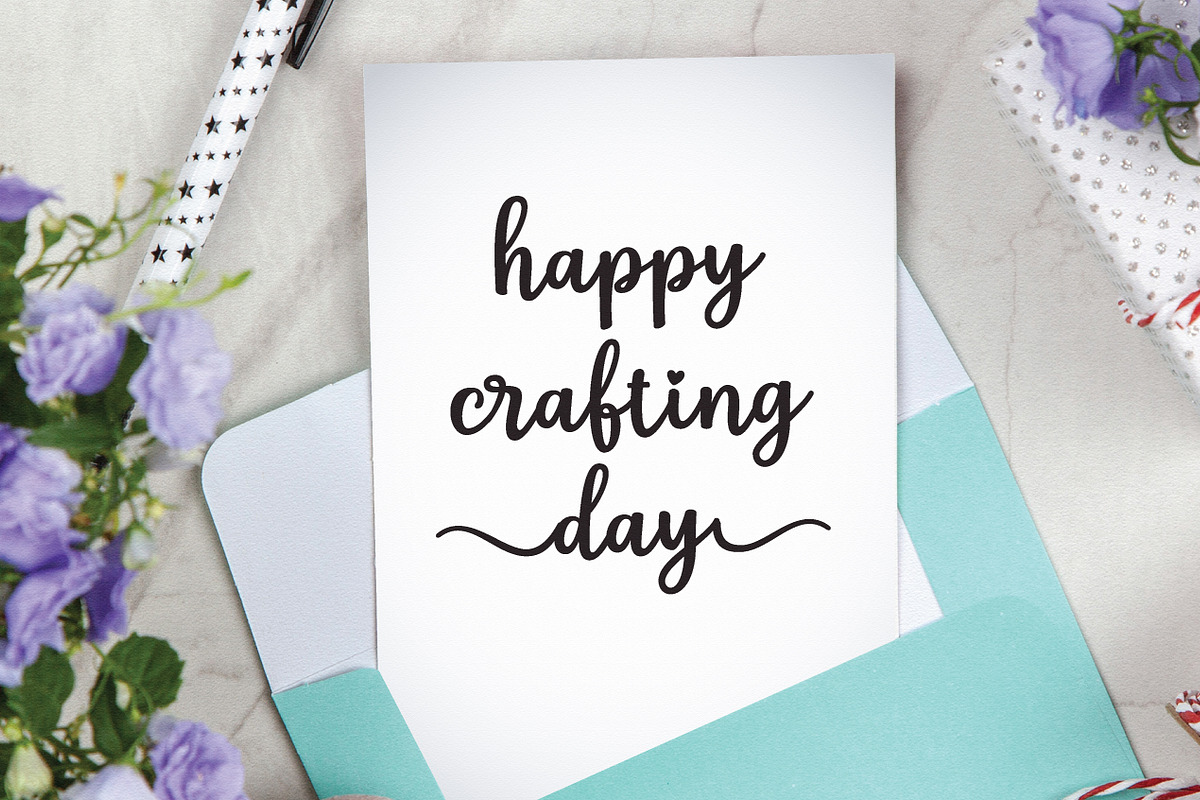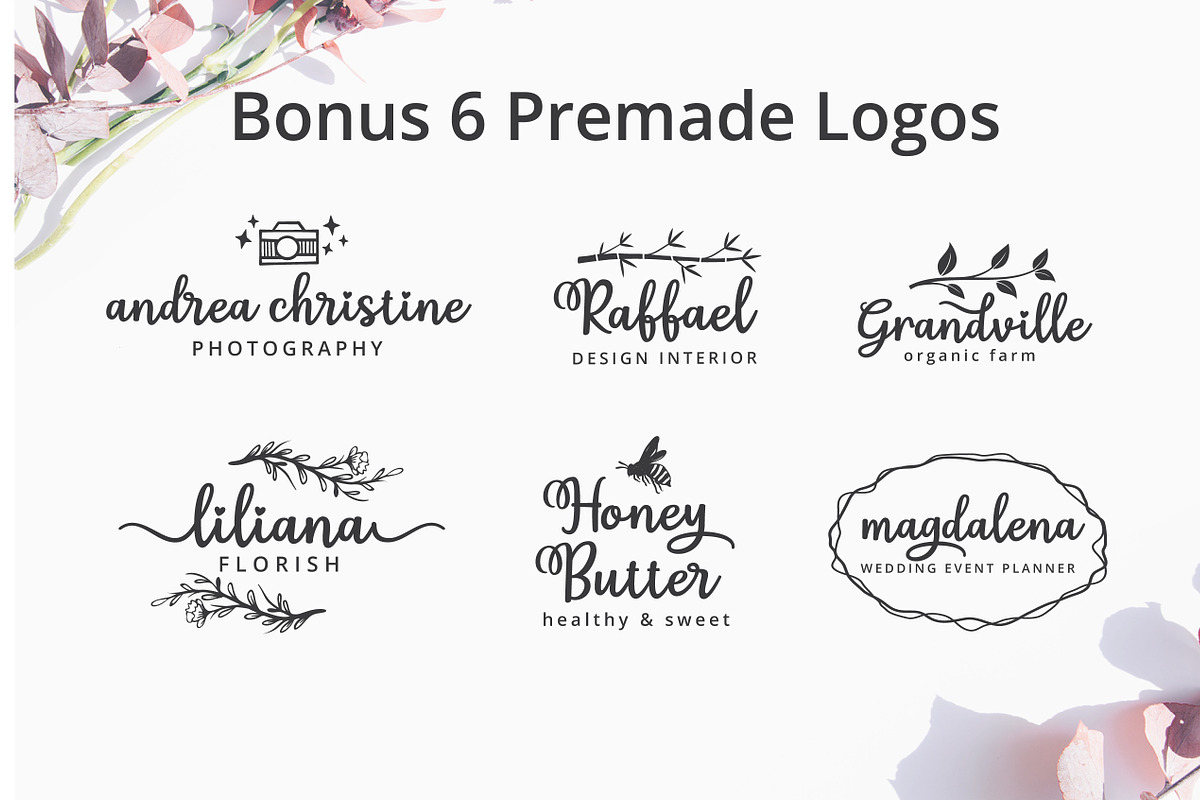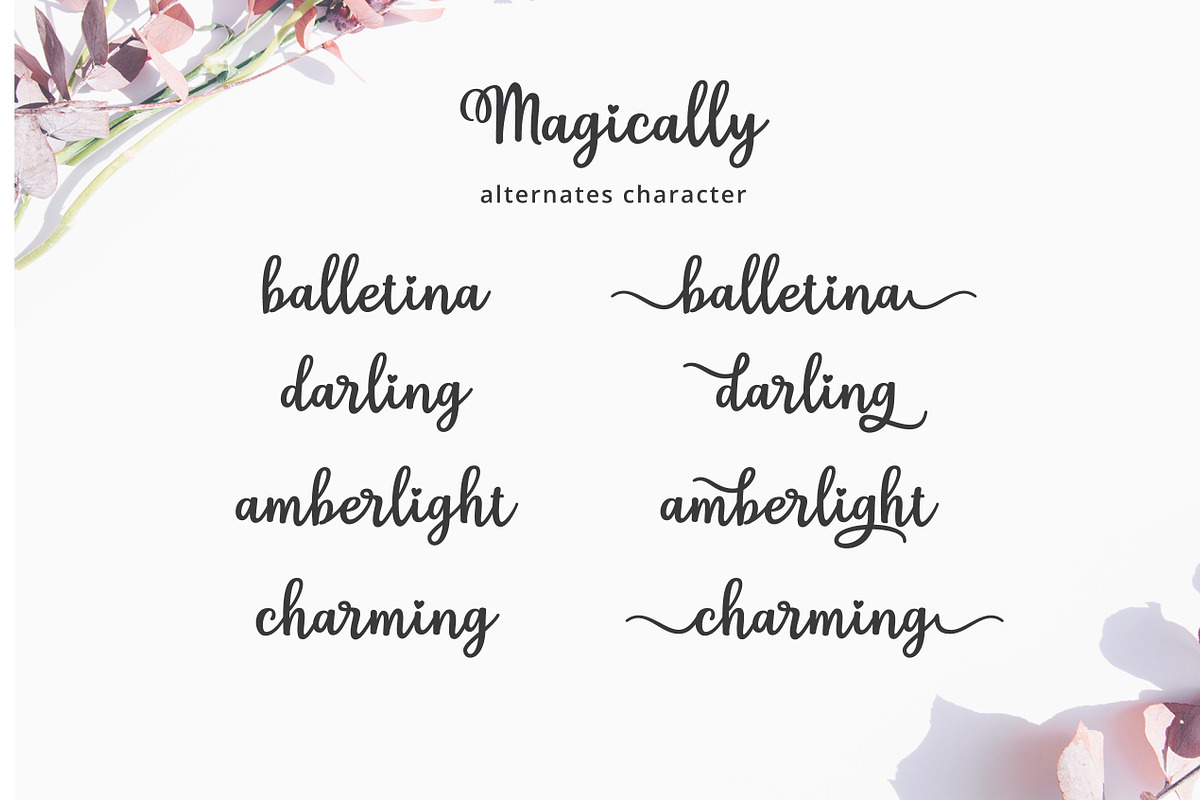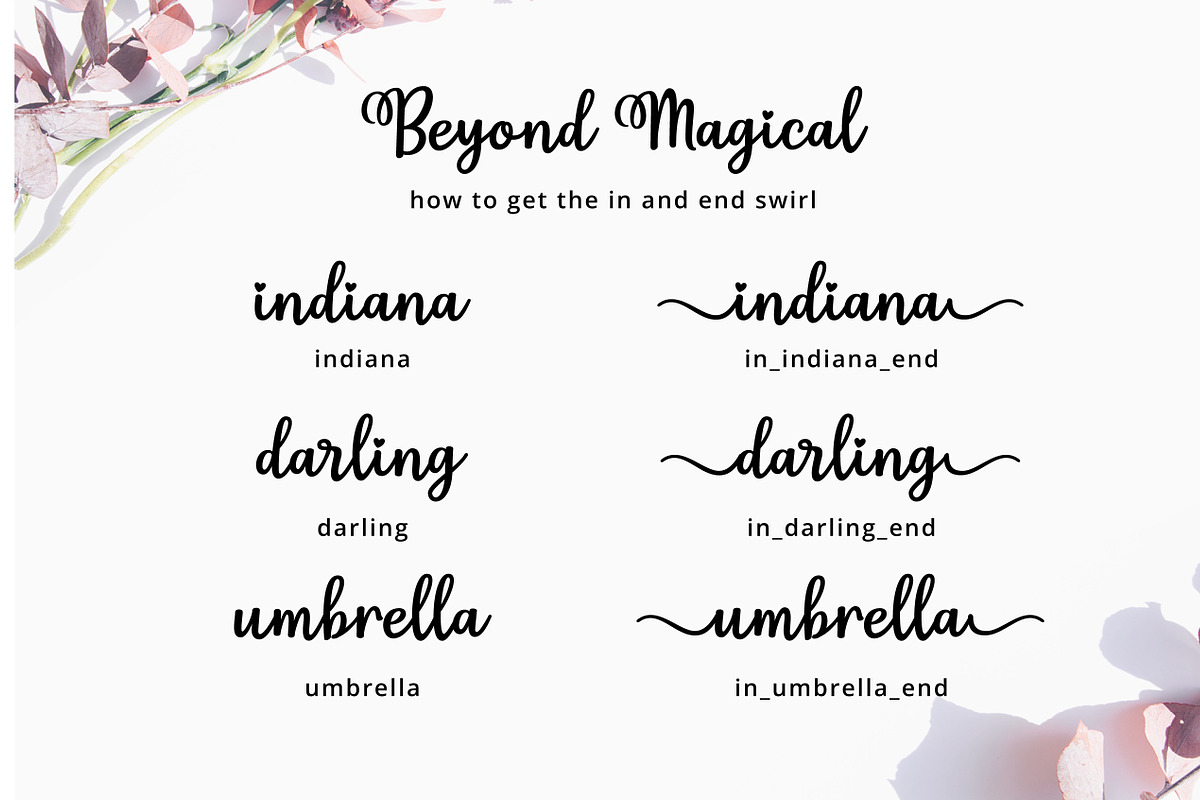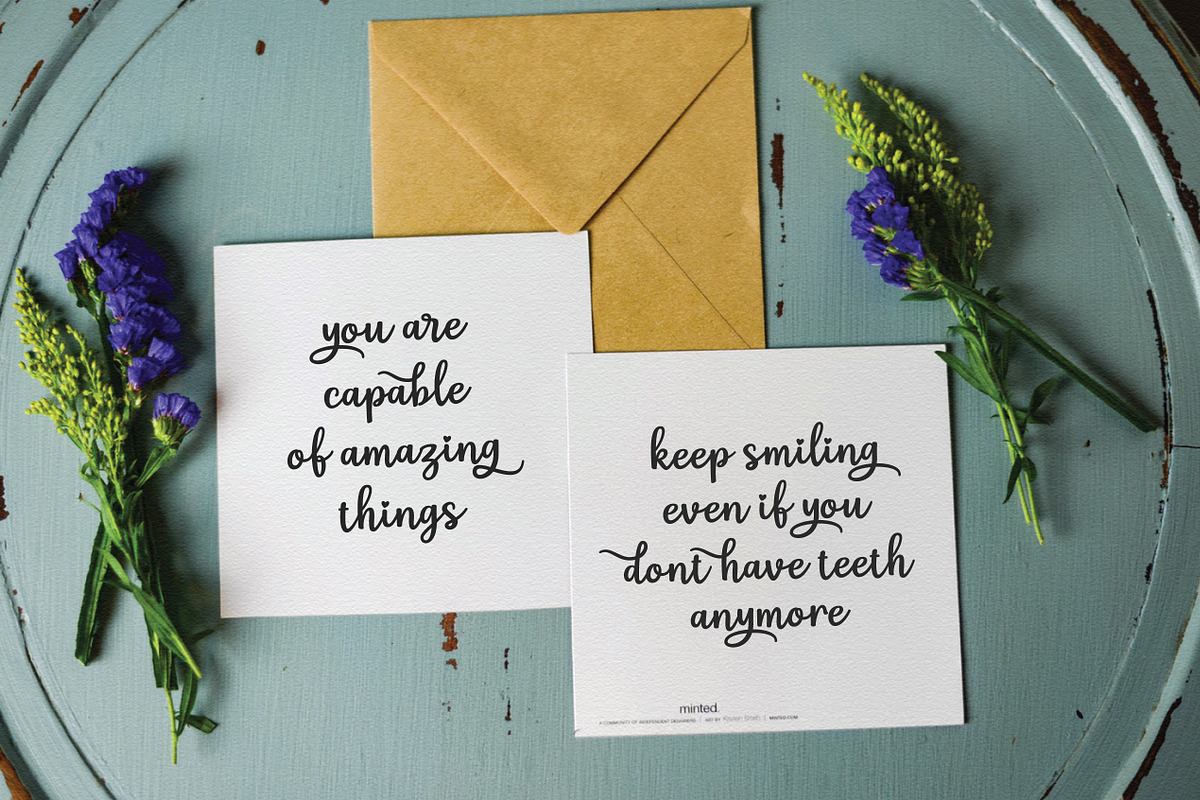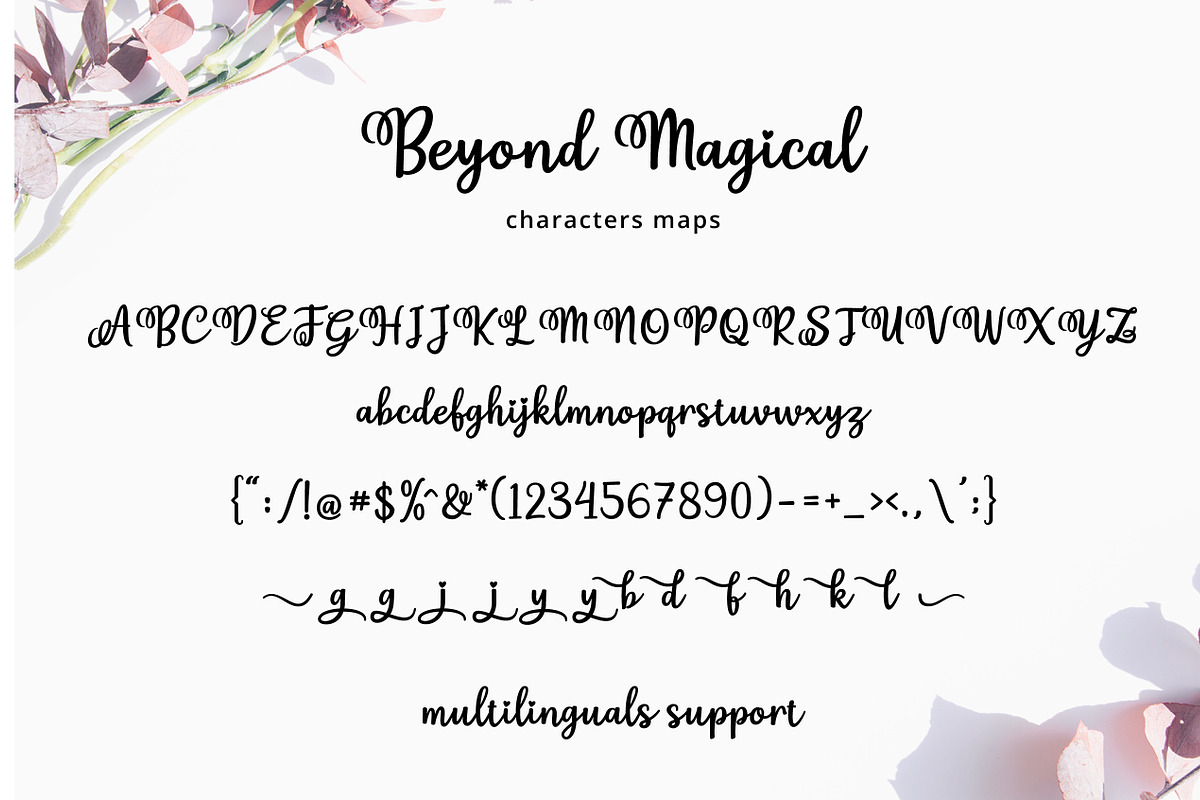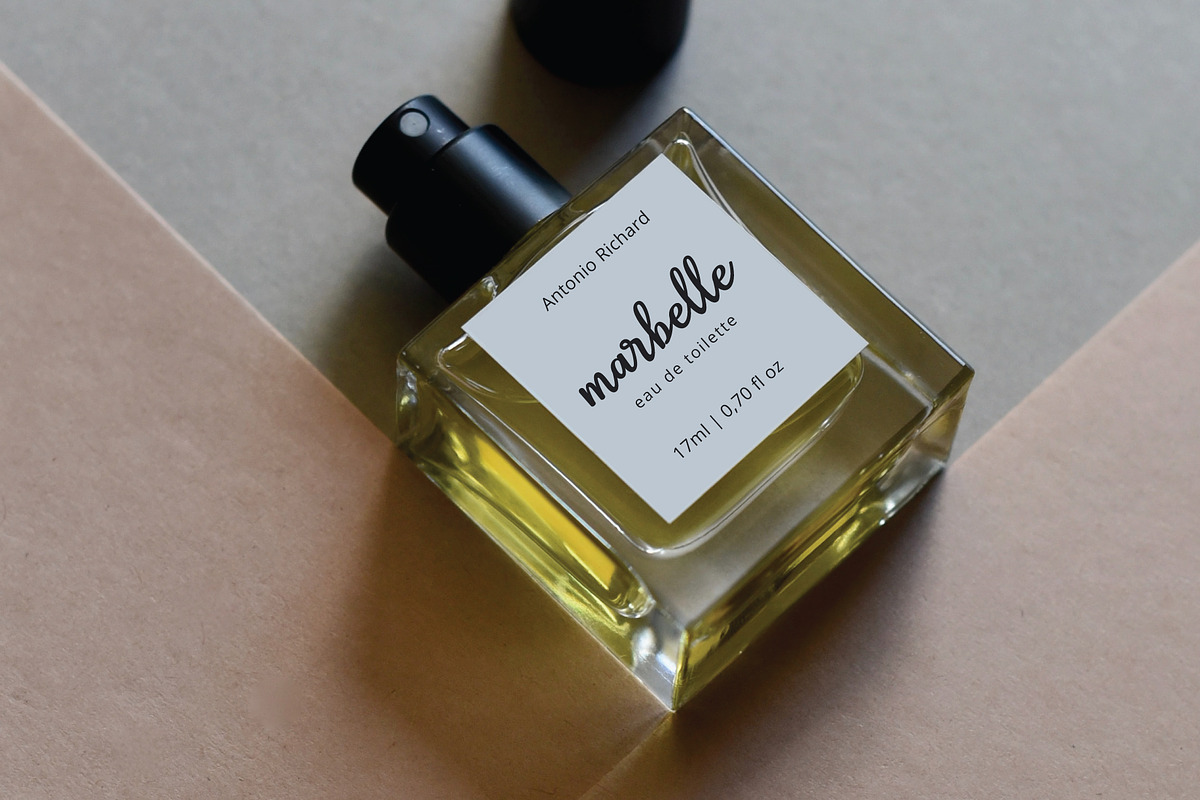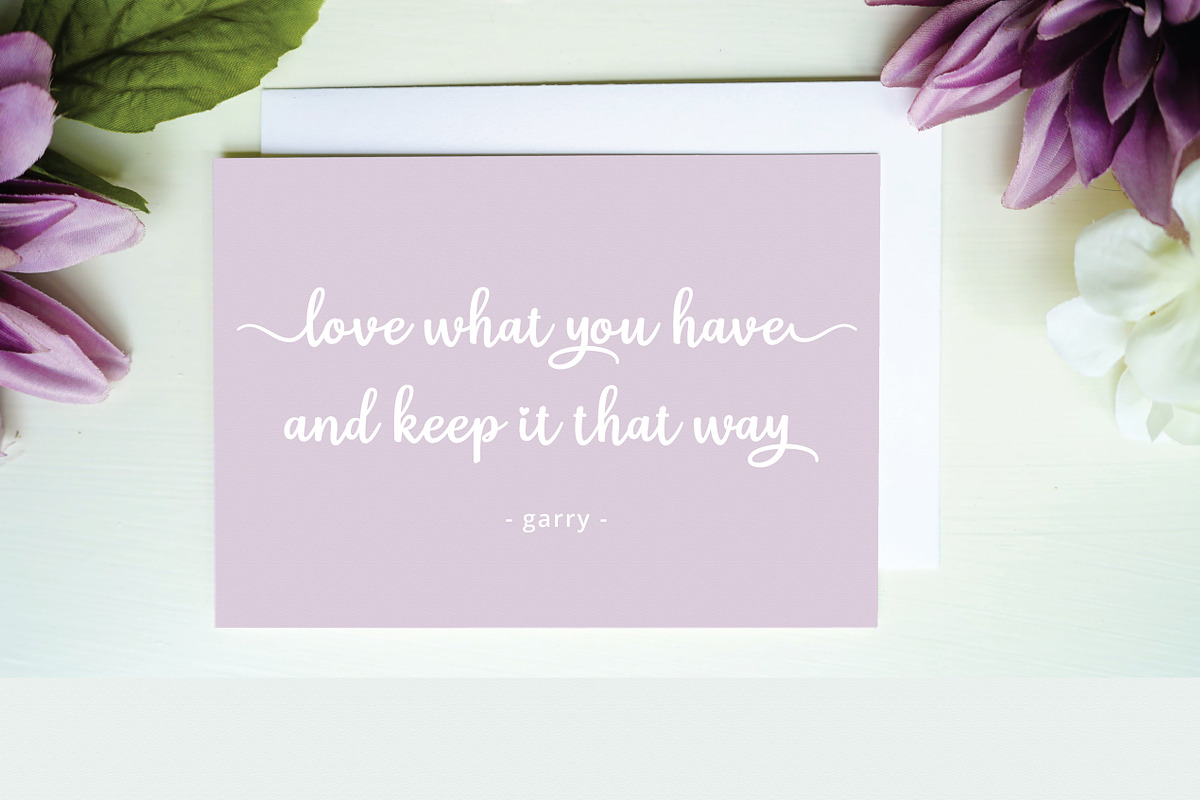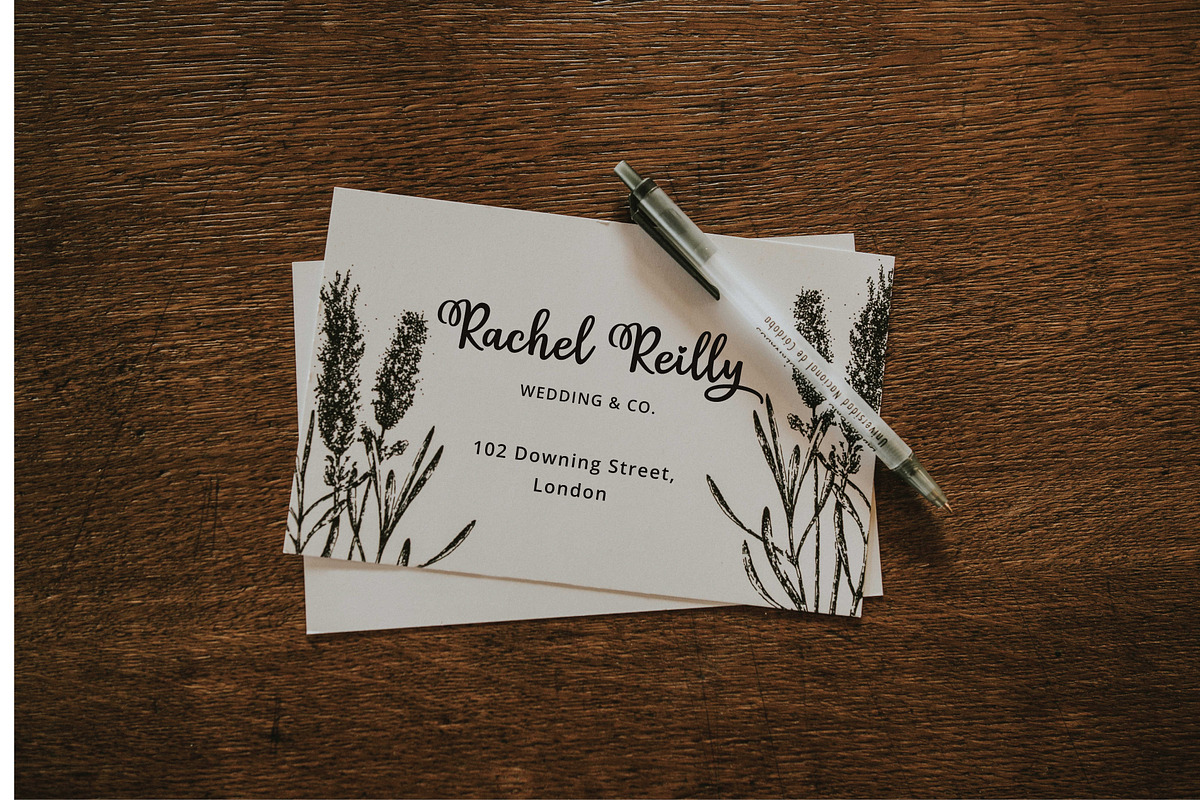
Beyond Magical Script
Beyond Magical is a handwritten script based font, with bouncy connection between the consonant and the vowel. This beautiful script was equipped with special lowercase alternates and beautiful swirl uppercase. This font is perfect logo, greeting card, tittle, quote and any other project that need cute and also beautiful feels.